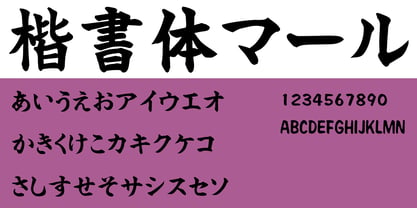
MRKaisho
by MAAR-sha
The MRKaisho Font Family was designed by and published by MAAR-sha. MRKaisho contains 2 styles and family package options. More about this family
This font is based on the book "Display Typeface Collection: Kaisho Script Dictionary" written by Hachiro Oda and published by MAAR Co., Ltd.
Kaisho script is considered the foundational style of Chinese character calligraphy, created to ensure clear and precise communication. It is widely used for various purposes, including flyers, posters, certificates, nameplates, and titles for various documents.